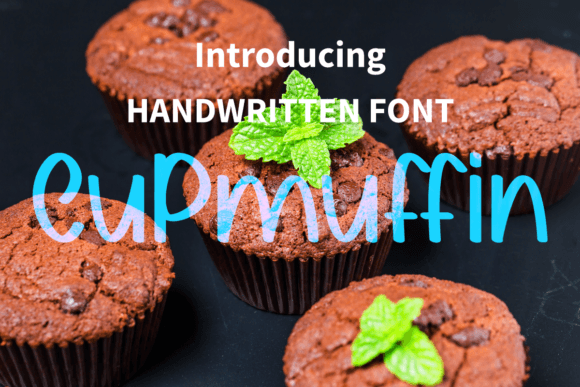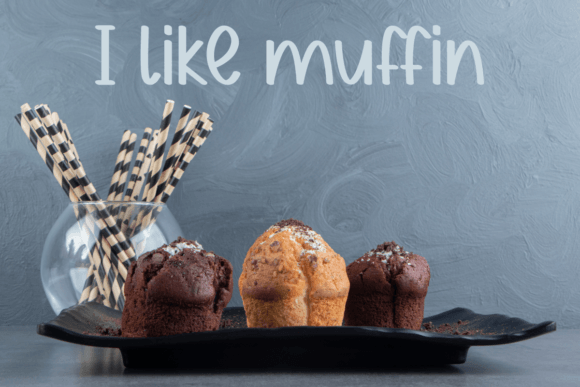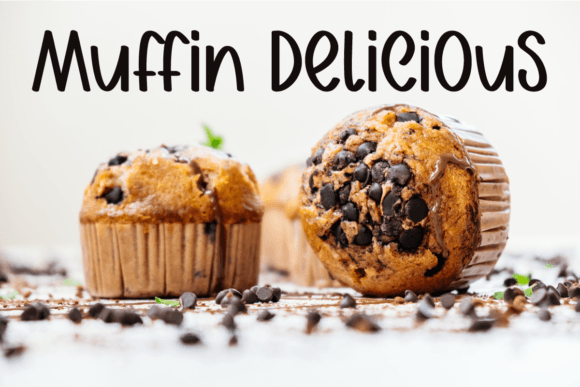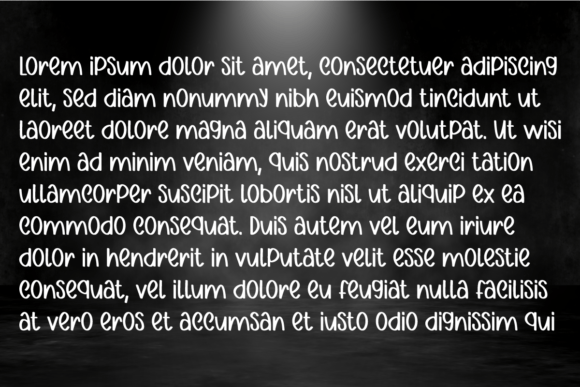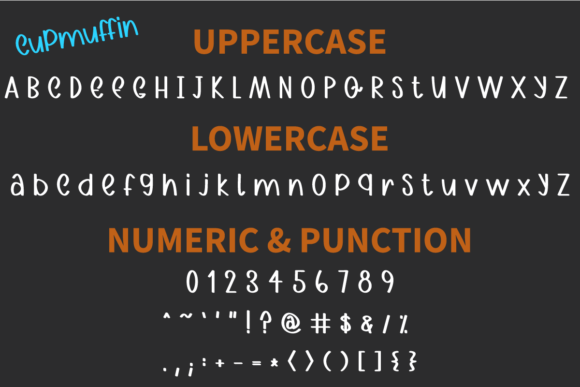
Cupmuffin Font
About Cupmuffin Font
**Cupmuffin** is a delightful and friendly handwritten font that infuses a sense of fun and whimsy into your creative projects. With its playful and slightly quirky character, this font is designed to add brightness and charm to your designs. It’s a versatile choice that works well for logos, wedding invitations, quotes, advertisements, print materials, magazines, and a wide range of other applications.
The unique appeal of **Cupmuffin** lies in its ability to bring a touch of joy and personality to your designs. The font’s handwritten style adds a personal and approachable touch, making your creative work feel warm and inviting.
One of the standout features of **Cupmuffin** is its adaptability. Whether you’re designing a cheerful logo, creating whimsical wedding invitations, or crafting quotes that radiate positivity, this font seamlessly fits into diverse design contexts. Its playful and quirky nature adds a touch of character to your creations.
**Cupmuffin** is equally at home in digital designs and printed materials. Whether it’s used to create a fun and dynamic digital advertisement or applied to the surface of printed magazines, this font maintains its friendly and inviting character. Its readability ensures that your message is conveyed effectively, while its handwritten style adds an extra layer of visual appeal.
What sets **Cupmuffin** apart is its ability to convey a sense of joy and playfulness. It’s a font that invites your audience to engage with your creative ideas in a way that resonates with its whimsical and handwritten quality. With **Cupmuffin** as part of your creative toolkit, you can add a touch of cheer and personality to your designs, making them more memorable and endearing.
Furthermore, **Cupmuffin** offers a wide array of customization options, allowing you to tailor your text to match your creative vision precisely. This flexibility empowers you to create designs that align perfectly with your artistic preferences.
In conclusion, **Cupmuffin** is not just a font; it’s a design asset that enhances your creative projects with fun, friendliness, and a sense of whimsy. Embrace its handwritten style, and let it inspire you to craft designs that evoke joy and positivity. With **Cupmuffin** by your side, your creative possibilities are expansive, enabling you to create works of art that brighten the day of your audience through its delightful and playful typography.